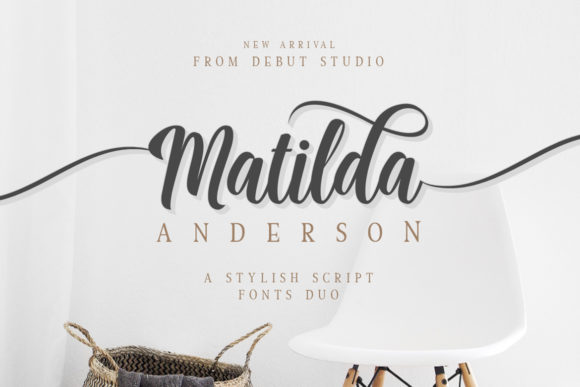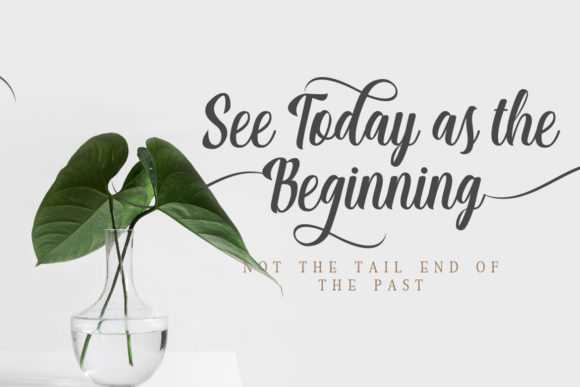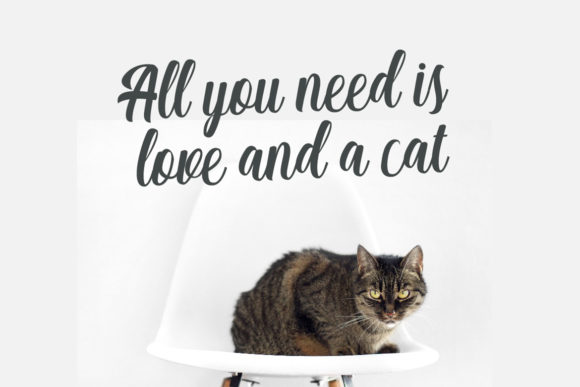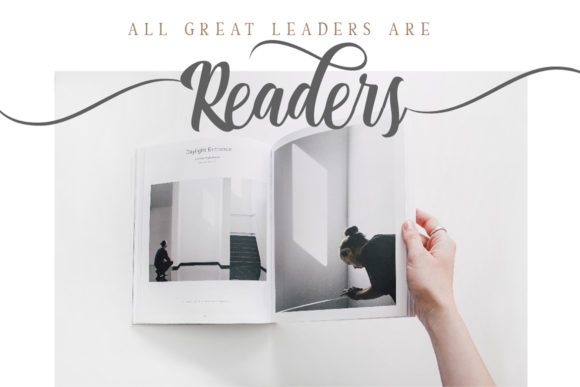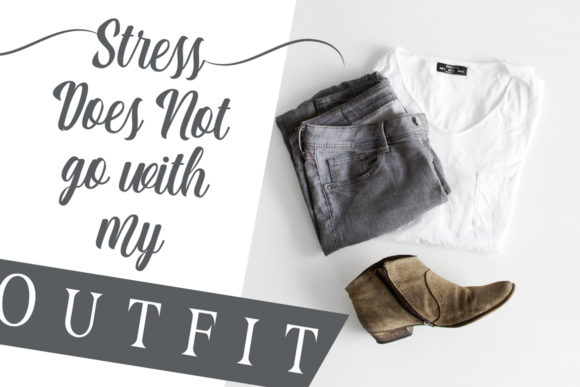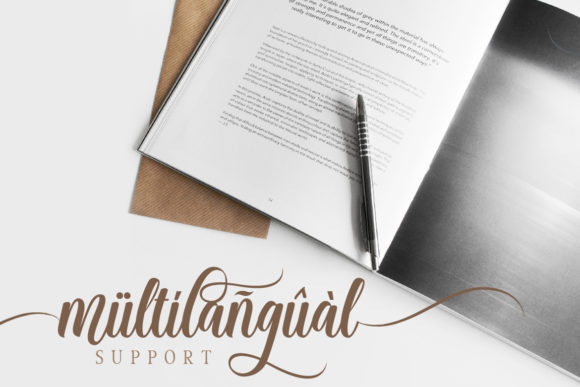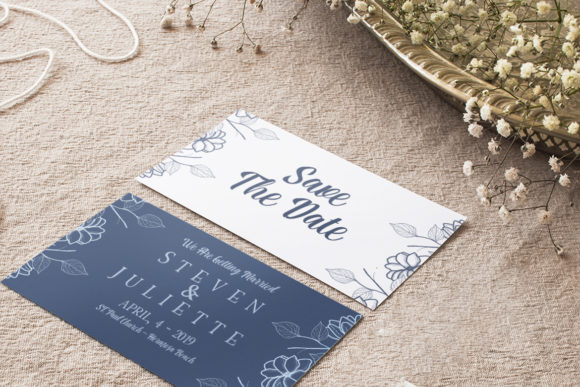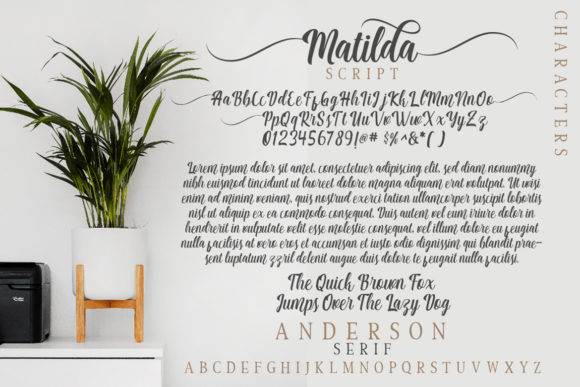
Matilda Anderson Duo Font
About Matilda Anderson Duo Font
The Matilda Anderson is an elegant font duo. It includes two amazing styles which can be combined perfectly. Giving you the opportunity to create multiple unique designs in an instant.
It’s suitable for wedding invitations, posters, quotes, labels, card names, and much more!